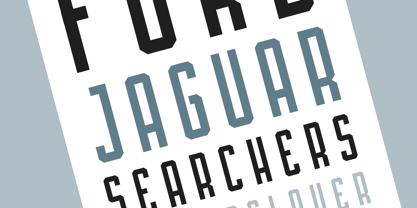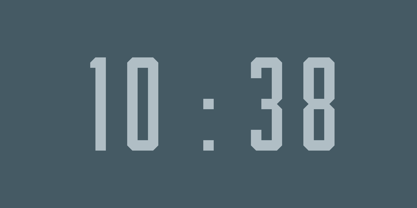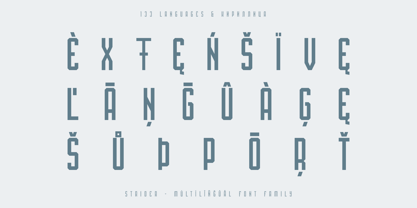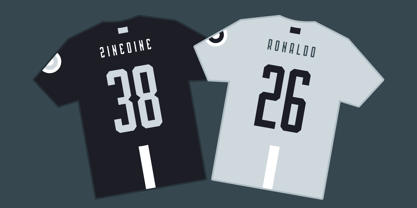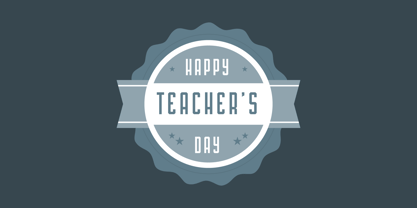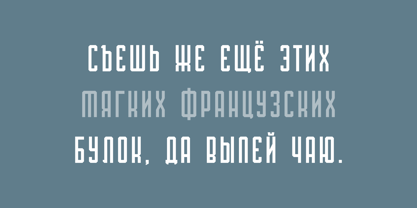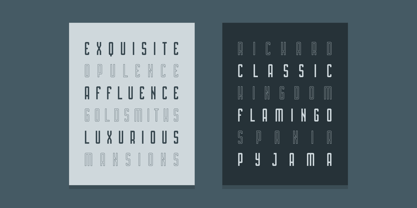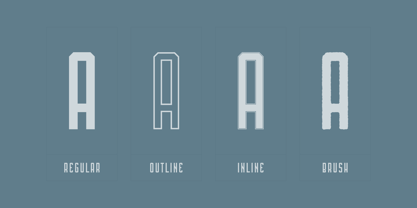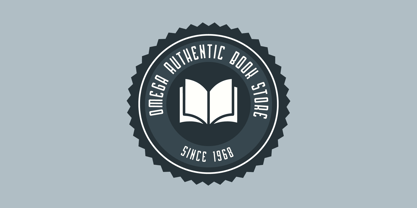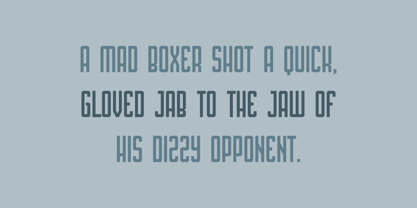
Strider
by AlperCakici
The Strider Font Family was designed by Alper Çakıcı and published by AlperCakici. Strider contains 34 styles and family package options. More about this family
Strider is a dynamic, geometric font family with 34 unique styles, crafted for designers who want flexibility and personality in their typography. From Angular, Brush, Eroded, Inline, Outline, Pencil, Rough, to Rounded styles, Strider covers a wide spectrum of visual expressions. Strider supports 133 Languages including Cyrillic Alphabets. Perfect for logos, headlines, posters, branding, packaging, and editorial layouts, each style is designed for readability and visual impact. Italics and decorative variations give extra versatility, making Strider an all-in-one solution for professional and creative projects.
Designers: Alper Çakıcı
Foundry: AlperCakici